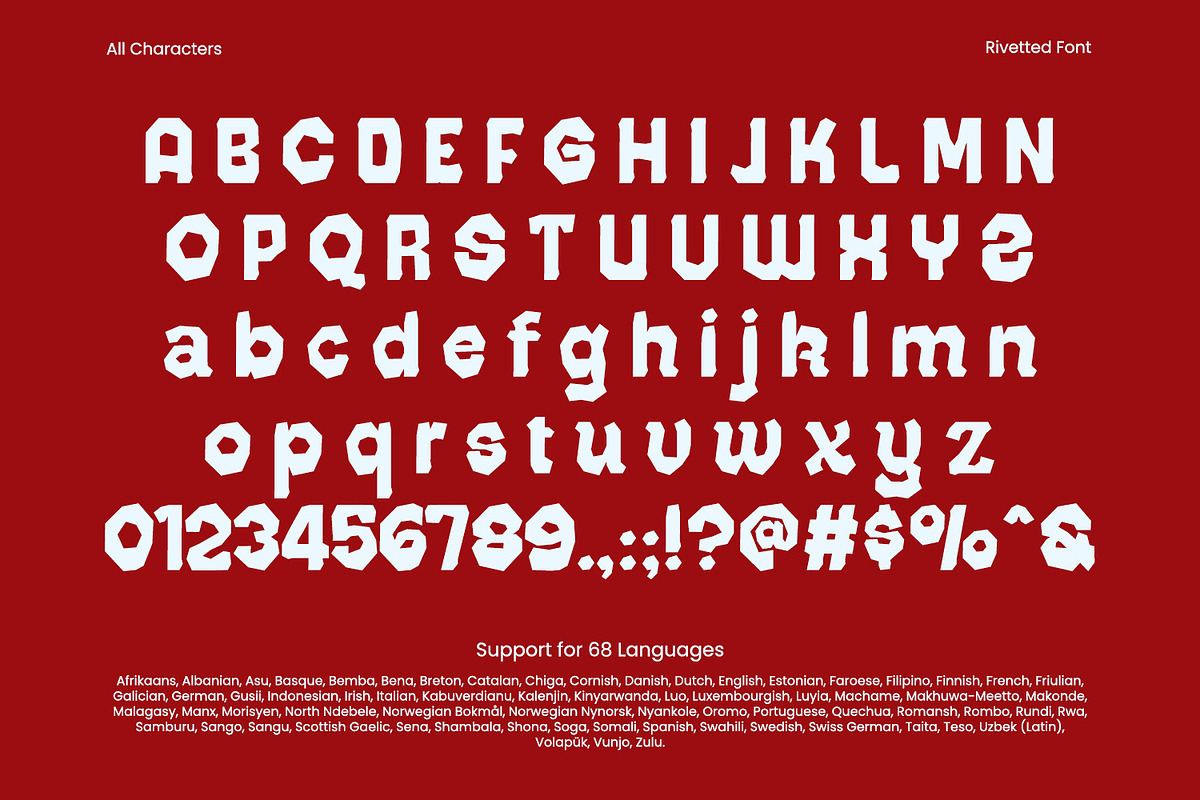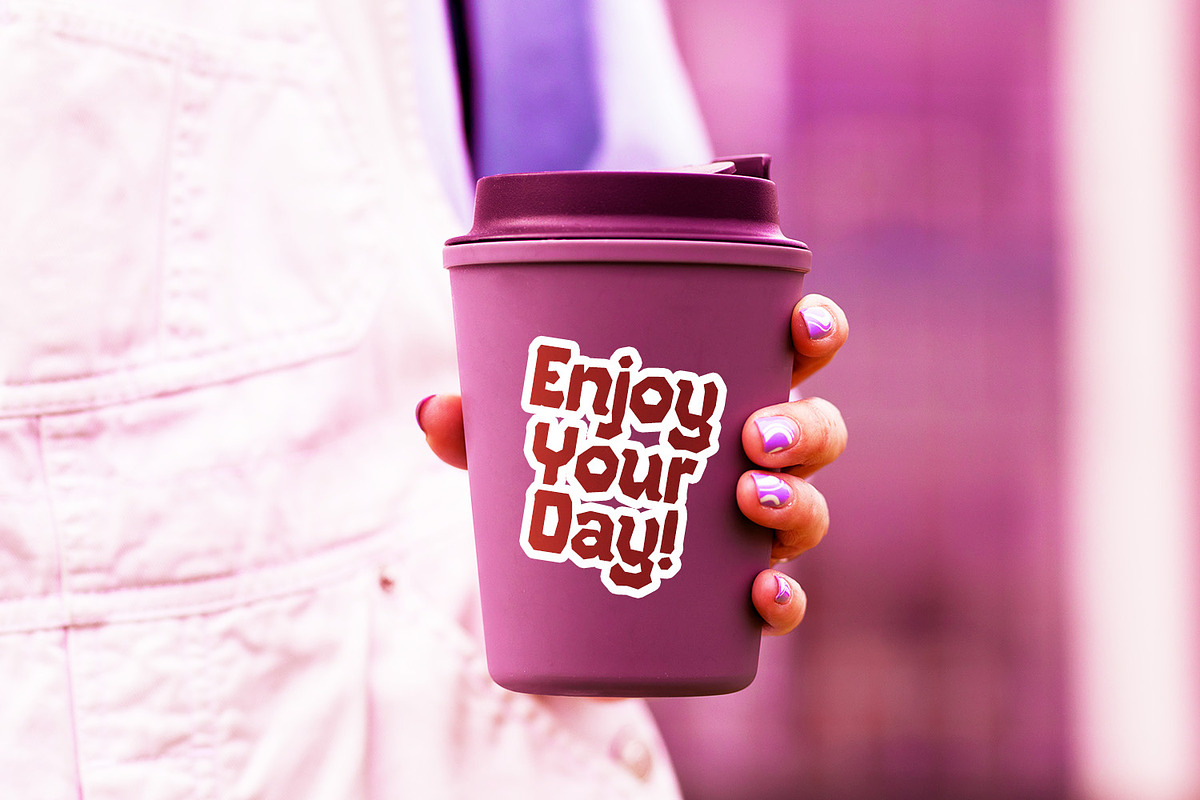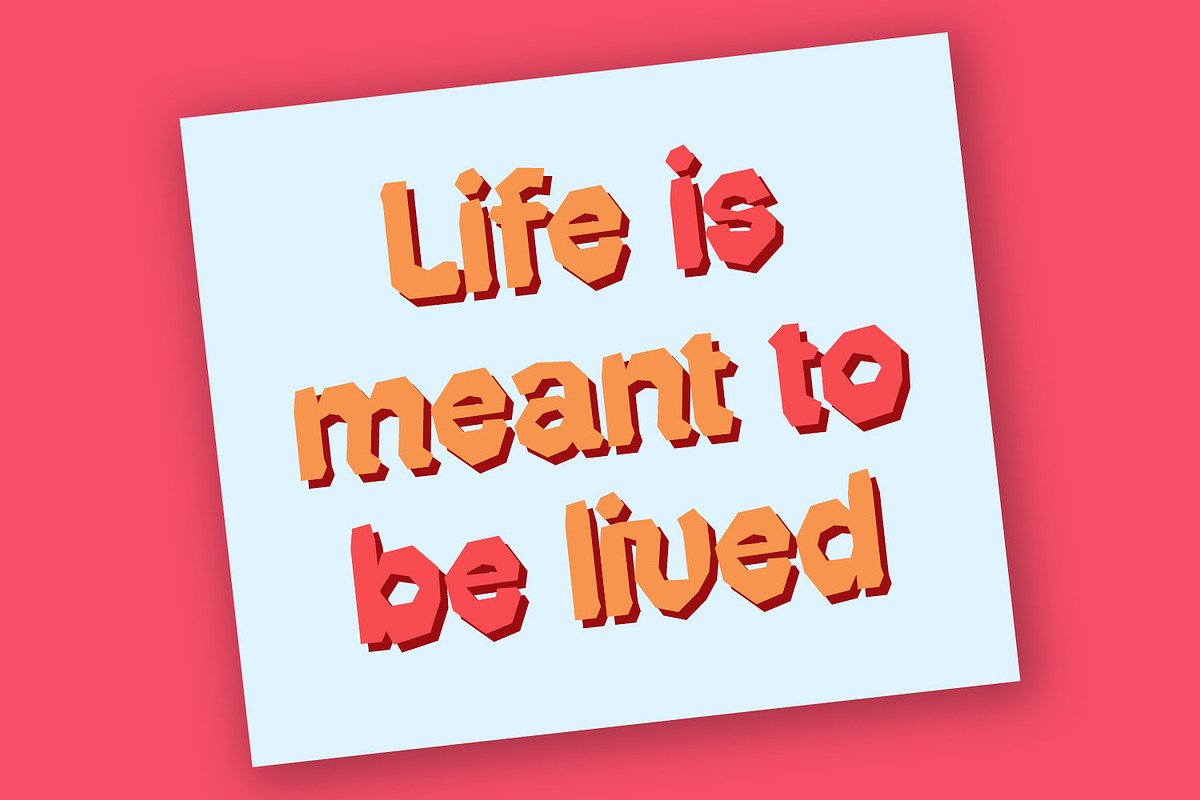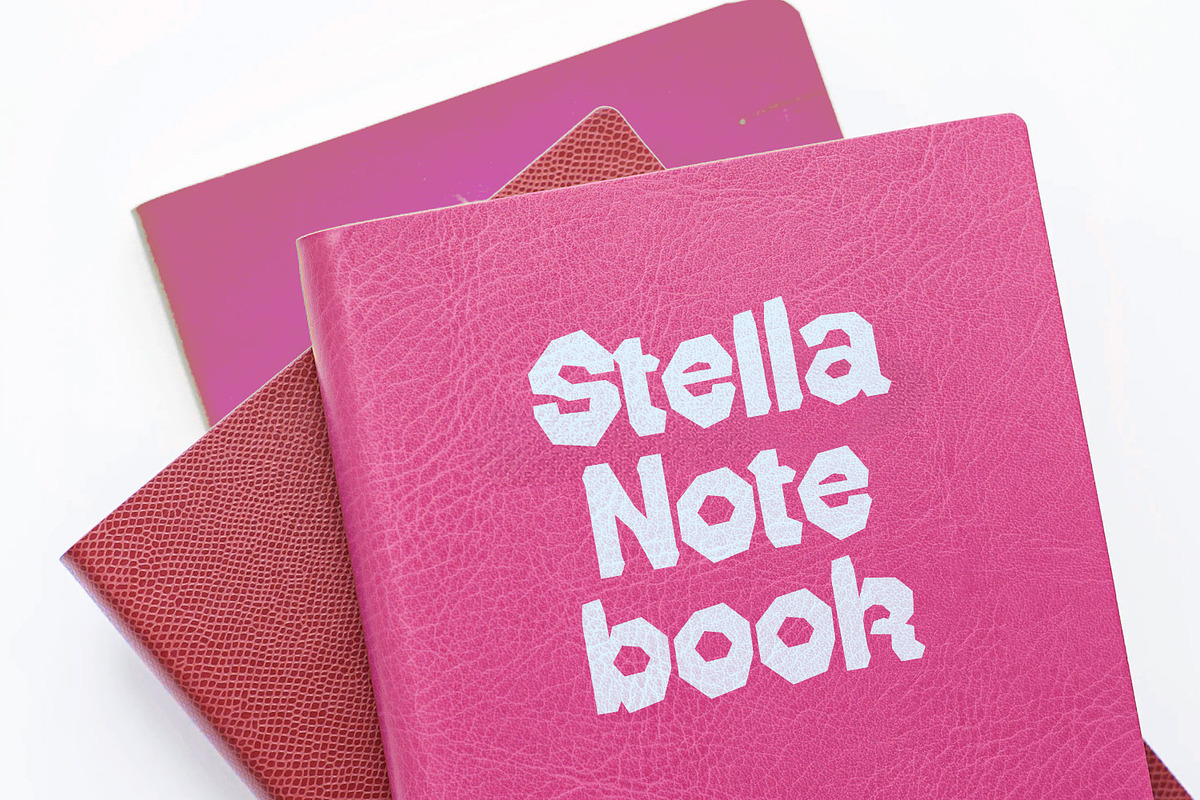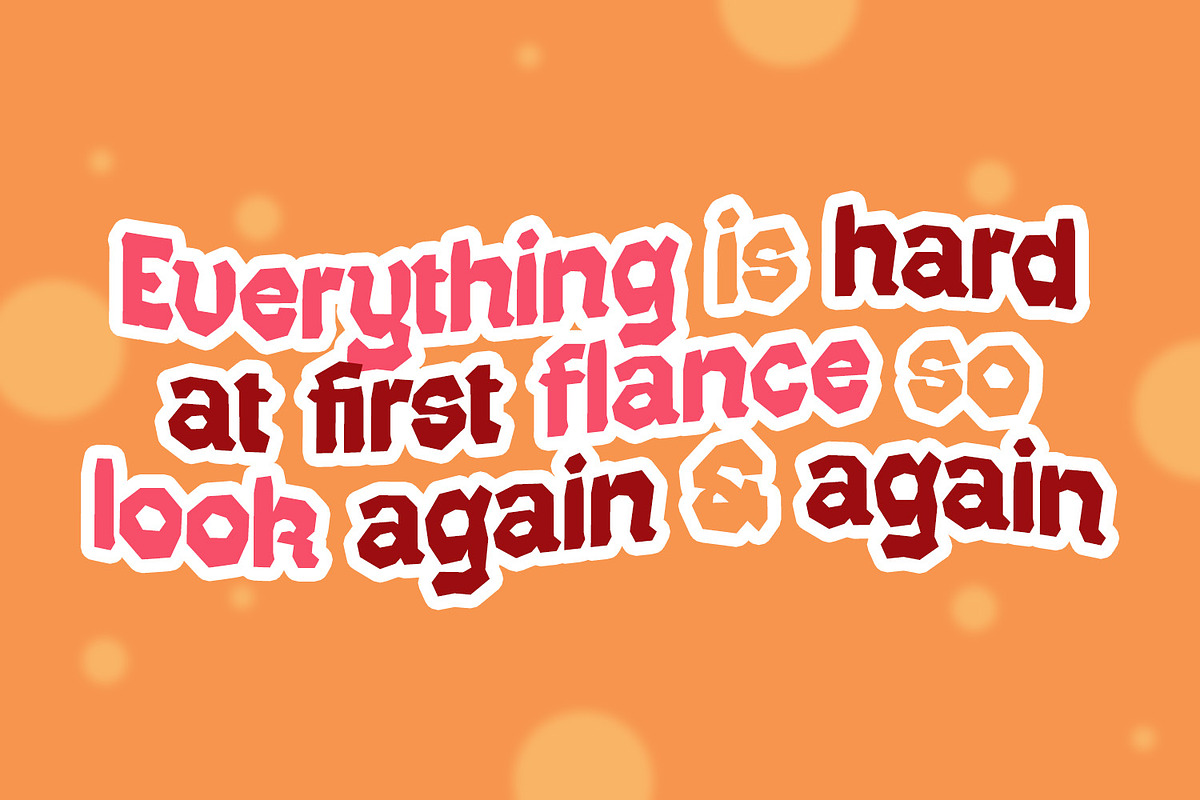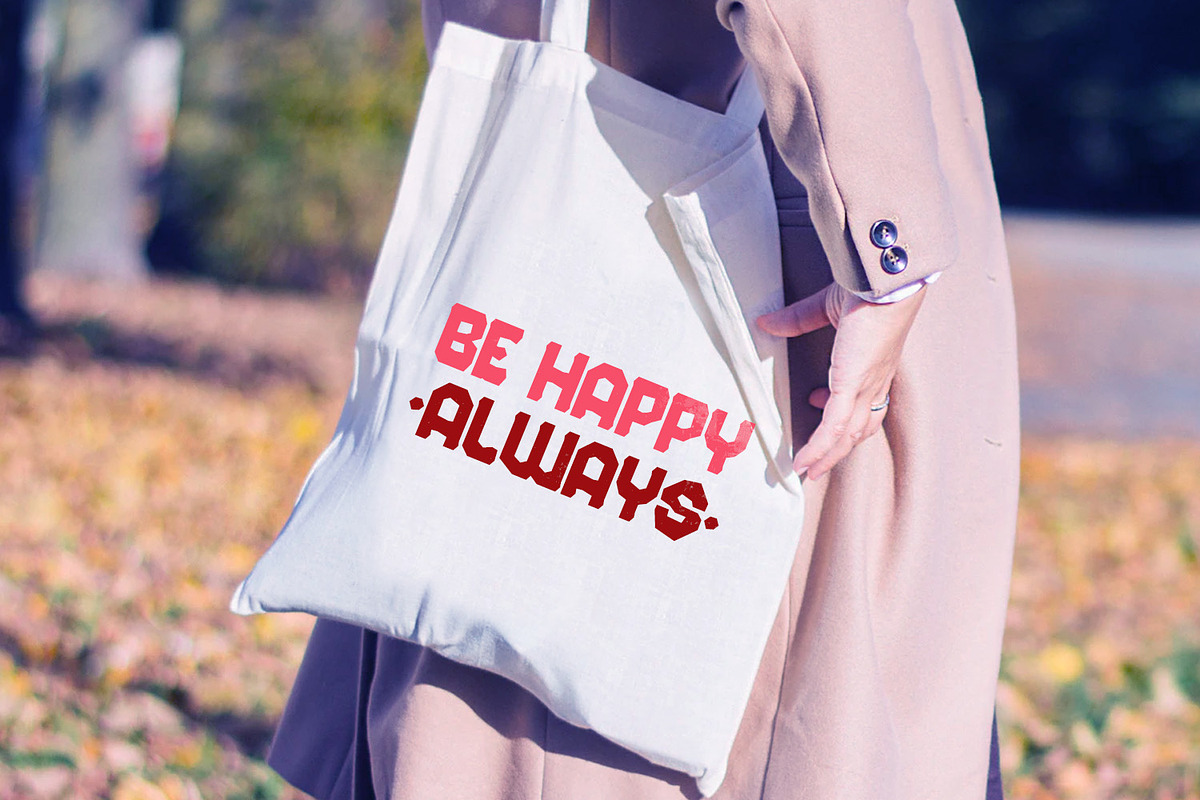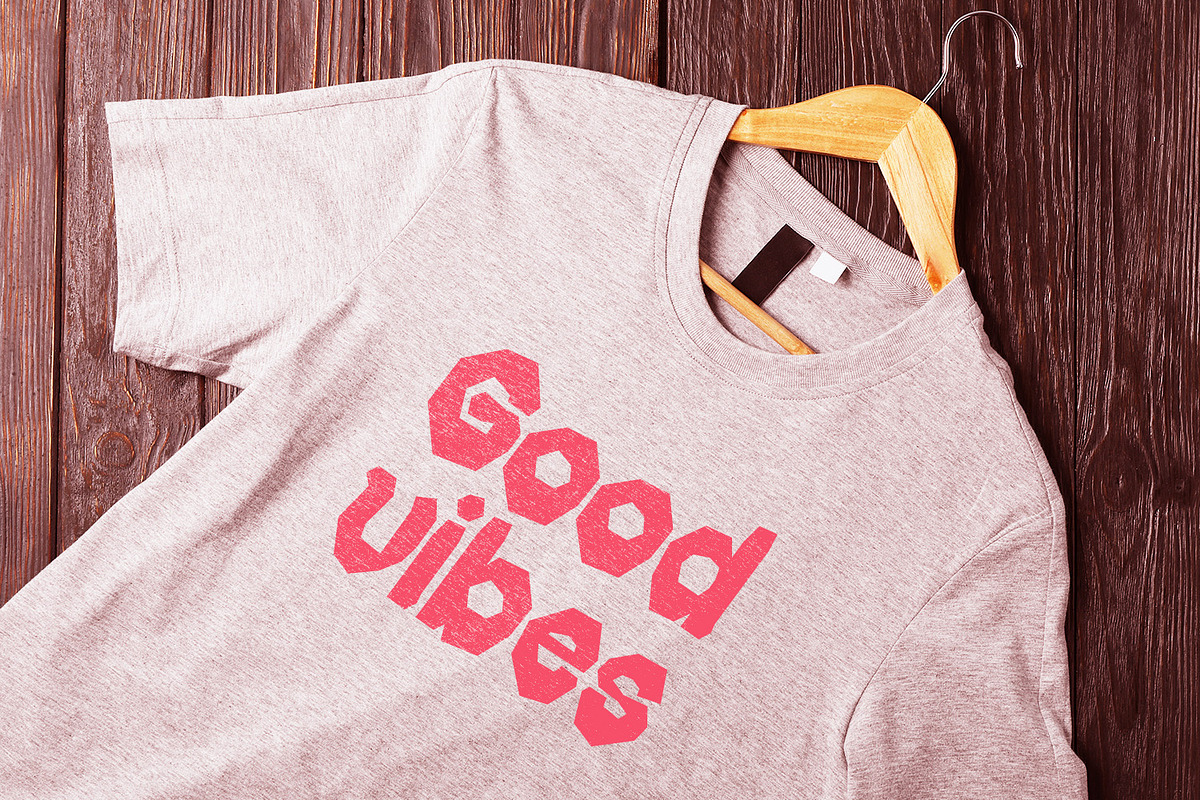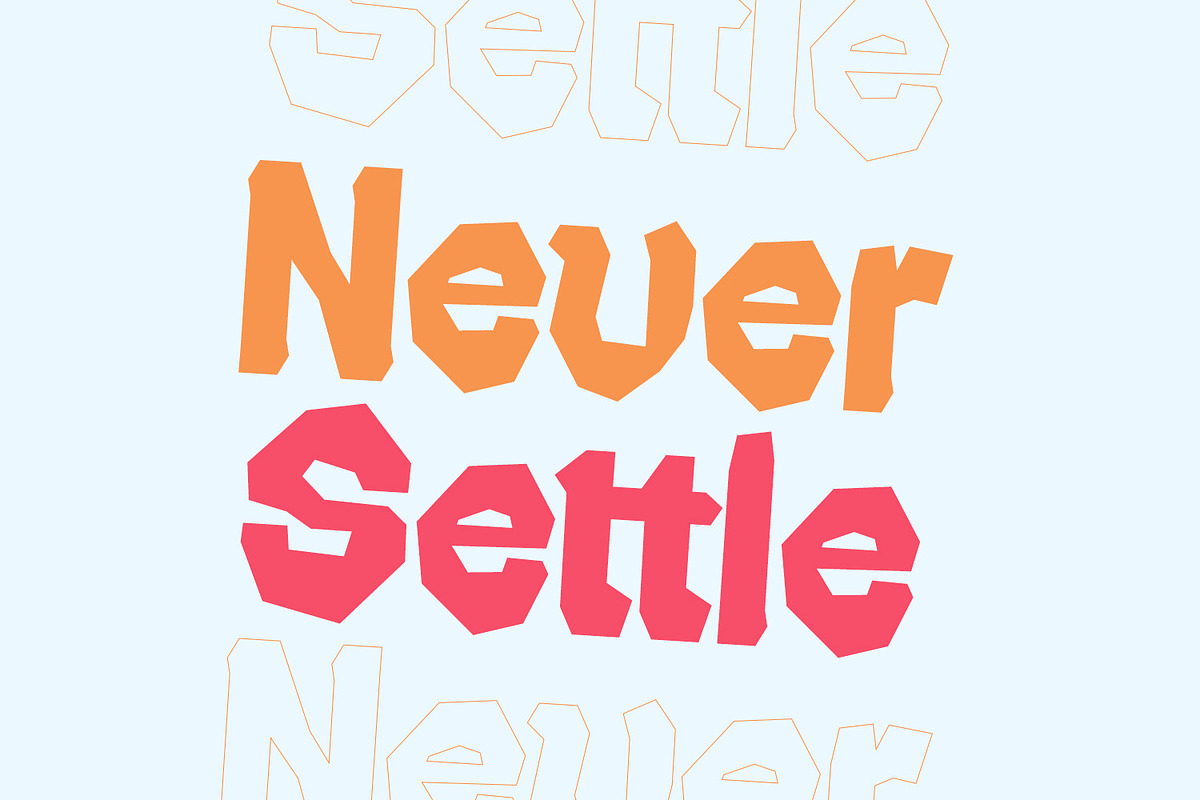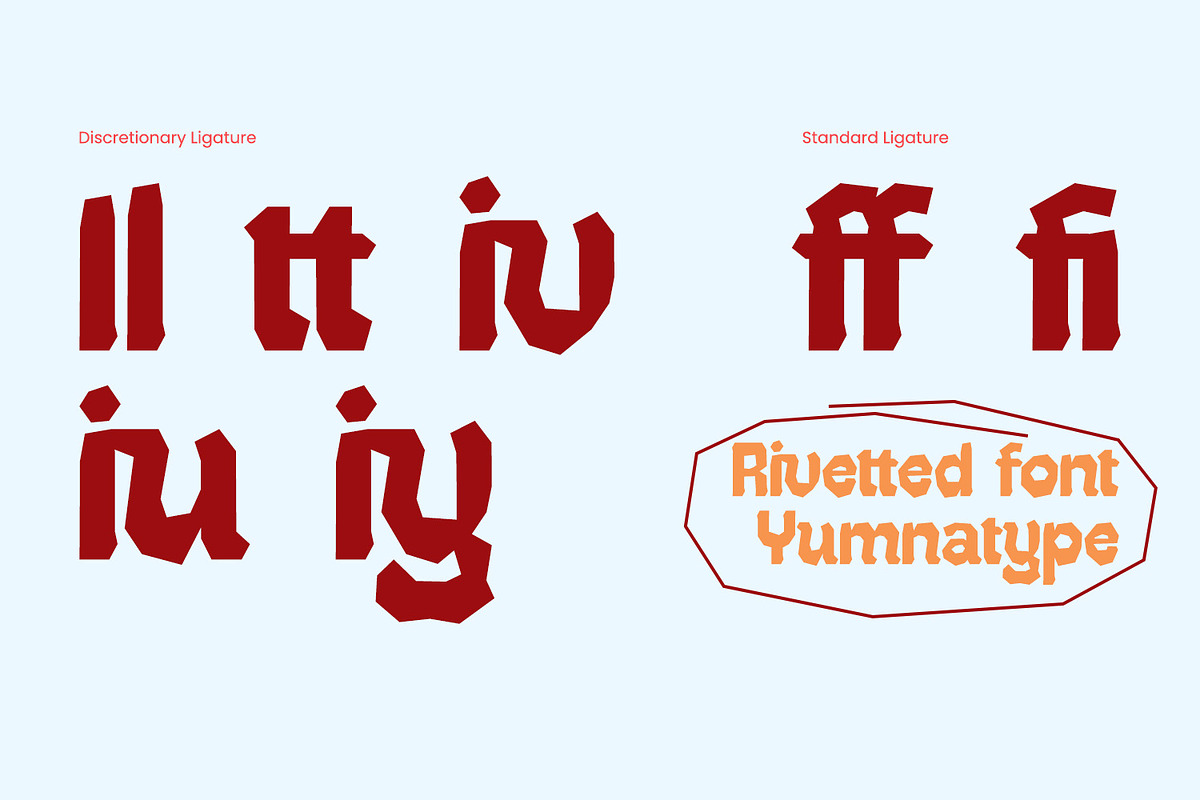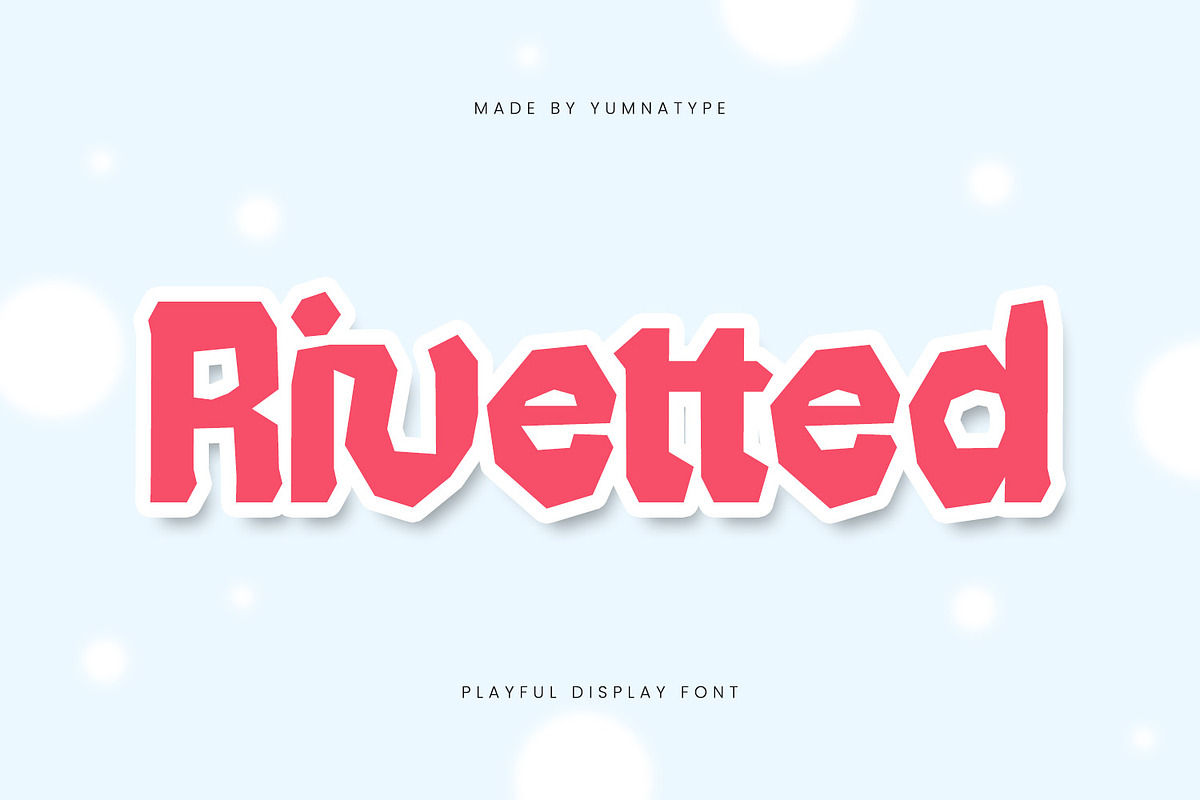
Rivetted
Rivetted is a captivating display font designed to infuse your projects with a sense of playfulness. Made in quite thick weight, Rivetted ensures that your text stands out with striking clarity and presence.
The multi-faceted outline of Rivetted gives it a textured look, adding an extra layer of visual interest and making it stand out from more traditional display fonts. This characteristic makes Rivetted particularly suited for projects that aim to convey a sense of innovation, and fun. In addition, enjoy the features here.
Rivetted fits in headlines, logos, posters, flyers, branding materials, print media, editorial layouts, and many more designs. Find out more ways to use this font by taking a look at the font preview.